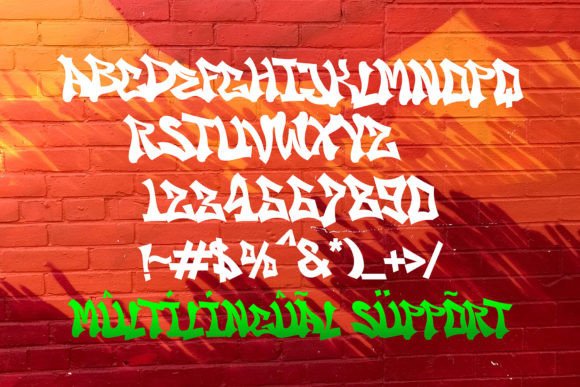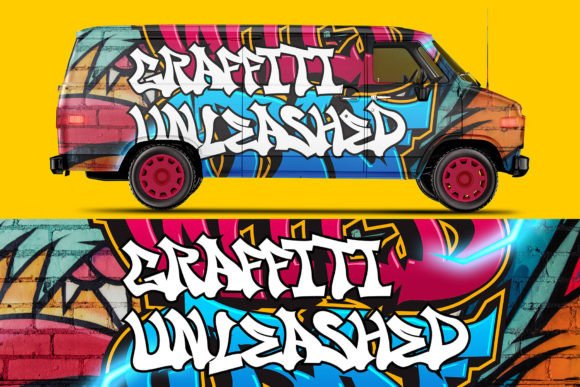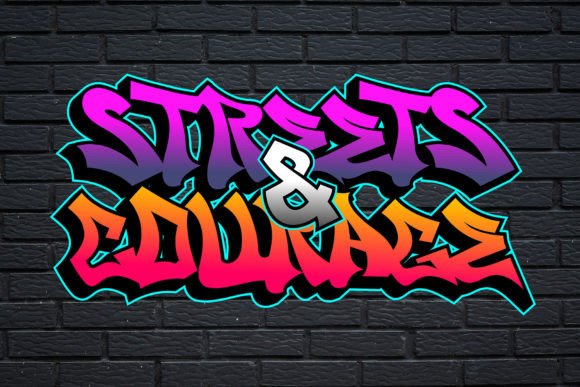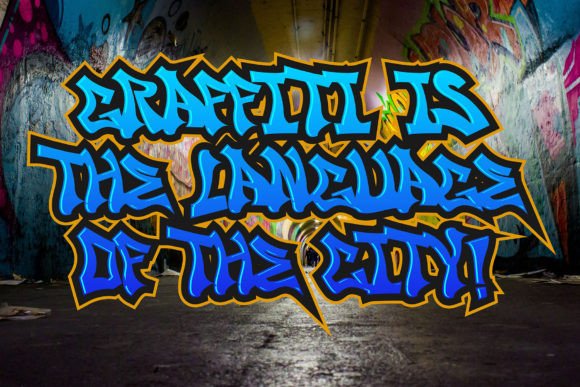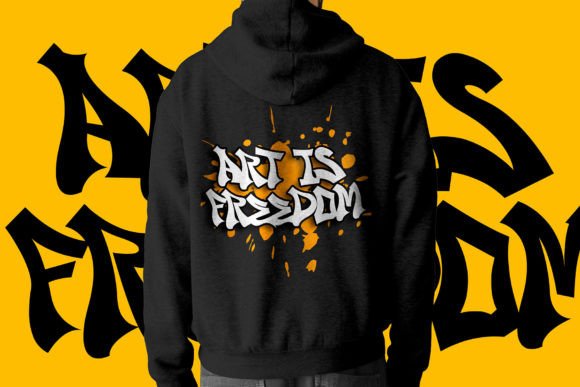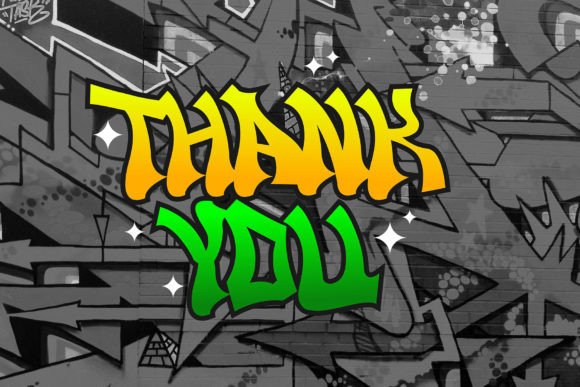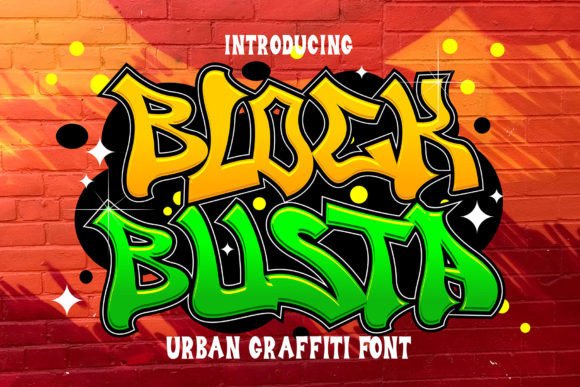
Unleash Your Creativity with Block Busta Font: The Ultimate Urban Graffiti Font
Are you a designer or crafter looking for a font that can add a touch of edginess to your projects? Look no further than Block Busta Font. This urban graffiti font is characterized by sharp edges and a bold look, making it the perfect choice for music posters, apparel designs, shirts, and streetwear. In this article, we’ll explore the unique features of Block Busta Font and how it can elevate your designs to the next level.
The Unique Style of Block Busta Font
Block Busta Font is a one-of-a-kind font that is sure to make a statement. Its sharp edges and bold look give it a rugged and urban feel that is perfect for death metal or urban graffiti themes. The font’s unique style is inspired by the streets, making it a great choice for designers who want to add a touch of attitude to their designs. Whether you’re creating a music poster, a t-shirt design, or a streetwear logo, Block Busta Font is the perfect choice.
Perfect for Music Posters and Apparel Designs
Block Busta Font is ideal for music posters, especially those in the death metal or hard rock genre. The font’s bold and edgy look is sure to grab attention and make your poster stand out. Additionally, the font is perfect for apparel designs, such as t-shirts, hoodies, and hats. The font’s urban graffiti style will add a touch of attitude to any apparel design, making it a great choice for streetwear brands.
Key Features of Block Busta Font
- Sharp Edges: Block Busta Font features sharp edges that give it a bold and rugged look.
- Urban Graffiti Style: The font’s urban graffiti style makes it perfect for streetwear and urban-themed designs.
- Bold Look: The font’s bold look makes it perfect for making a statement.
- Easy to Read: Despite its bold look, Block Busta Font is easy to read, making it perfect for use in a variety of designs.
How to Use Block Busta Font in Your Designs
- Pair it with a bold color: Block Busta Font looks great when paired with a bold color. Try pairing it with a bright color like red or orange to make your design stand out.
- Use it for headings: Block Busta Font is perfect for use in headings. Try using it as a heading font for your music poster or apparel design.
- Experiment with different sizes: Block Busta Font looks great in a variety of sizes. Experiment with different sizes to find the one that works best for your design.
Block Busta Font is a unique and versatile font that is perfect for designers and crafters who want to add a touch of edginess to their projects. Its sharp edges and bold look make it perfect for music posters, apparel designs, shirts, and streetwear. With its urban graffiti style and easy-to-read design, Block Busta Font is the perfect choice for anyone looking to make a statement. So why wait? Download Block Busta Font today and unleash your creativity!
- What is Block Busta Font? Block Busta Font is an urban graffiti font characterized by sharp edges and a bold look.
- What is Block Busta Font used for? Block Busta Font is perfect for music posters, apparel designs, shirts, and streetwear.
- Is Block Busta Font easy to read? Yes, despite its bold look, Block Busta Font is easy to read.